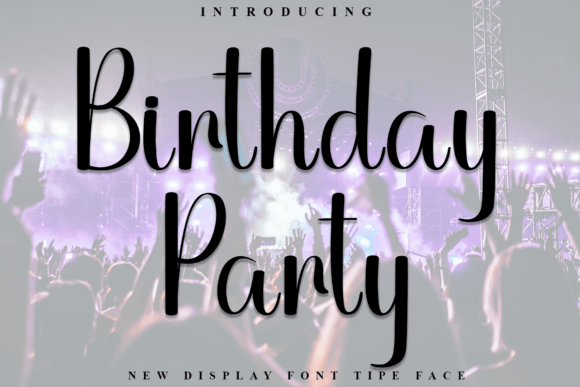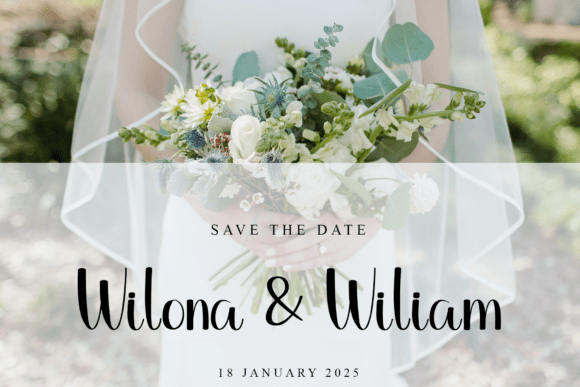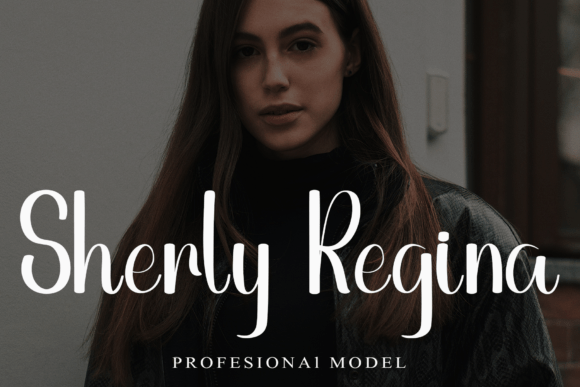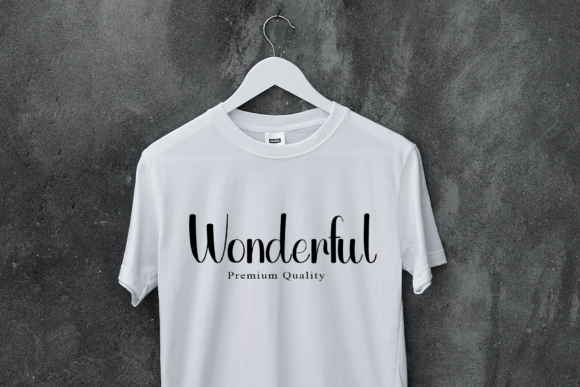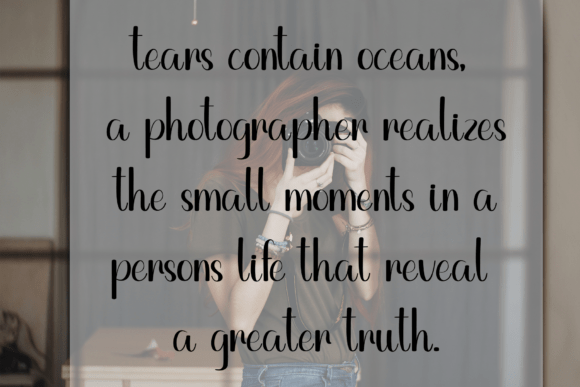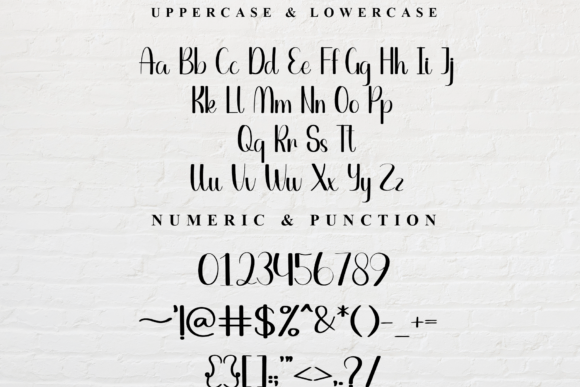
Get Ready to Celebrate with Birthday Party Font
Have you ever stumbled upon a font that just makes you feel like it was made for you? For me, that font is Birthday Party Font. It’s the perfect combination of playfulness and warmth that instantly transports me to a world of creativity and joy. Whether you’re planning a birthday bash or just need a font to add some personality to your social media graphics, Birthday Party Font is the perfect companion.
This charming font is designed to bring a smile to your face with its round, playful strokes and hand-drawn aesthetic. With its standard PUA Encoded glyphs, you can easily use it in various applications like Adobe Photoshop, Corel, and Adobe Illustrator, making it a valuable addition to any designer’s toolkit.
Birthday Party Font Key Features
- Font Family: Birthday Party Font is a custom-designed font family, making it unique and suitable for various celebrations.
- Unique Characteristics: Birthday Party Font features colorful, playful, and whimsical elements, making it perfect for birthday invitations, party decorations, and other celebratory materials.
- Characters: The font family includes a wide range of characters, including uppercase and lowercase letters, numbers, and punctuation marks, ensuring versatility in design applications.
Overall, I think the Birthday Party Font is a fun and playful choice for any celebration. Here are a few things that I think work really well:
- ✨ The font is incredibly versatile and can be used for a wide range of birthday-related designs, from party invitations to cake toppers.
- ✨ The font is easy to read and understand, even at smaller sizes, making it perfect for use in a variety of contexts.
- ✨ The font is also highly customizable, allowing you to adjust the color, size, and style to fit your specific design needs.
However, I do have a few concerns:
- ⚠️ The font may not be suitable for more formal or elegant designs, as it has a slightly childish tone.
- ⚠️ Some of the characters in the font may not be as well-designed as others, which can make them look a bit rough around the edges.
Overall, I think the Birthday Party Font is a great choice for anyone looking for a fun and playful font for their birthday designs. While it may have a few limitations, its versatility and customizability make it a great option for a wide range of projects.
To get the most out of the Birthday Party Font, try the following:
- Use it in combination with bright and bold colors to create a festive atmosphere.
- Use it to create custom invitations, banners, or decorations for your birthday party.
The Birthday Party Font is commonly used for:
- Birthday invitations and cards.
- Birthday banners and decorations.
- Party-themed social media posts and graphics.